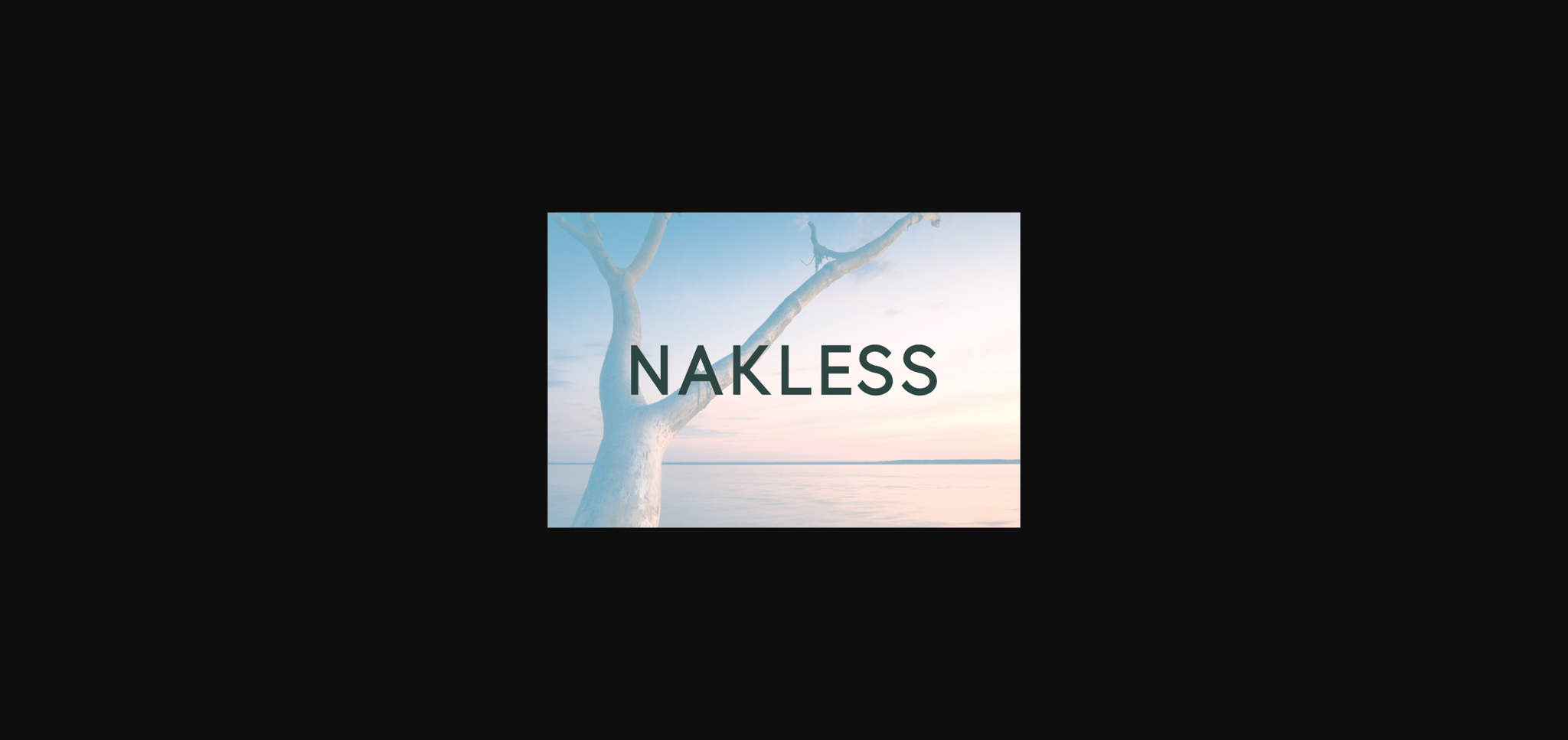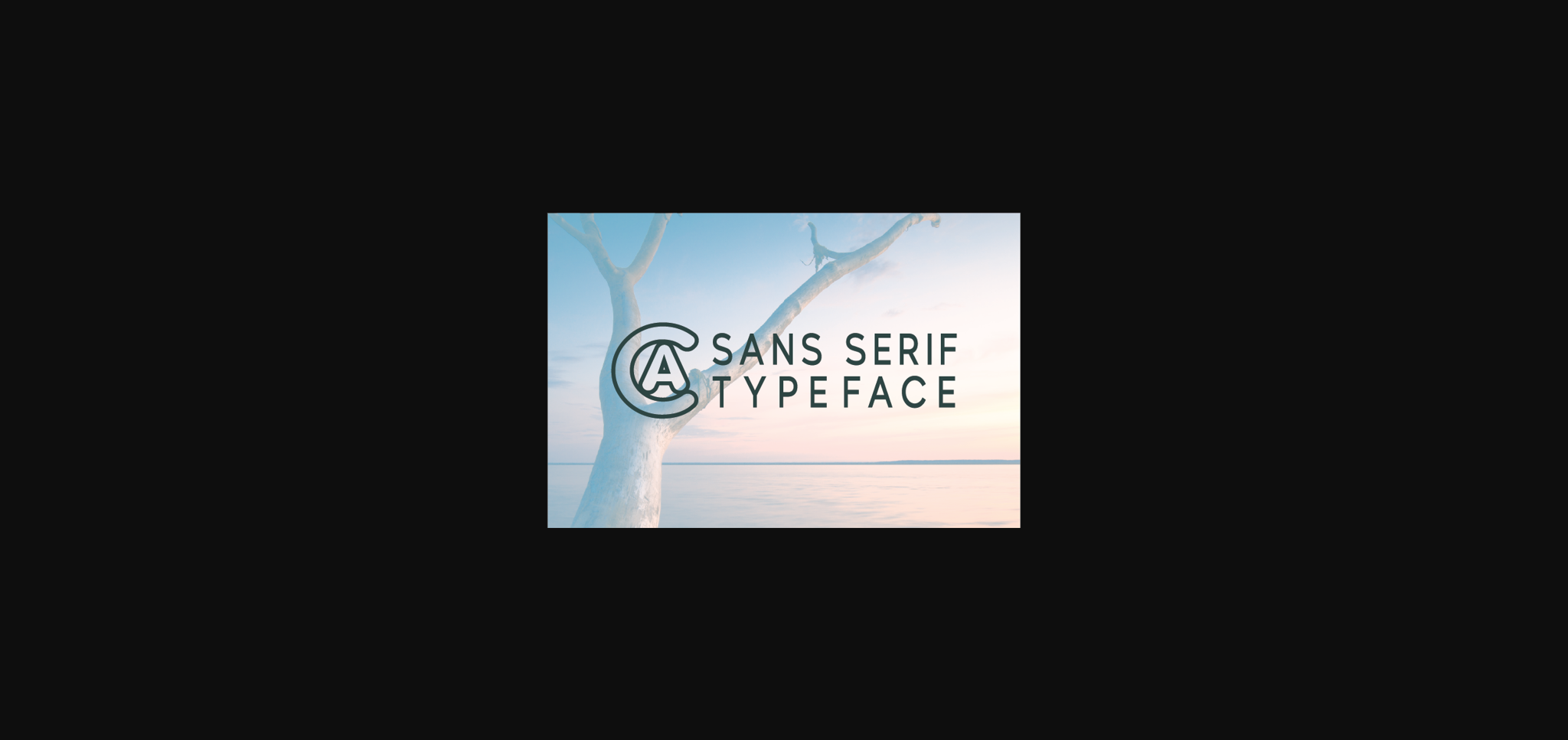
About Nakless Font
Nakless is a stylish and incredibly elegant sans serif font.
An extremely versatile font, perfect for logos, weddings, invitations, quotes, advertisements, print, magazines, and more!